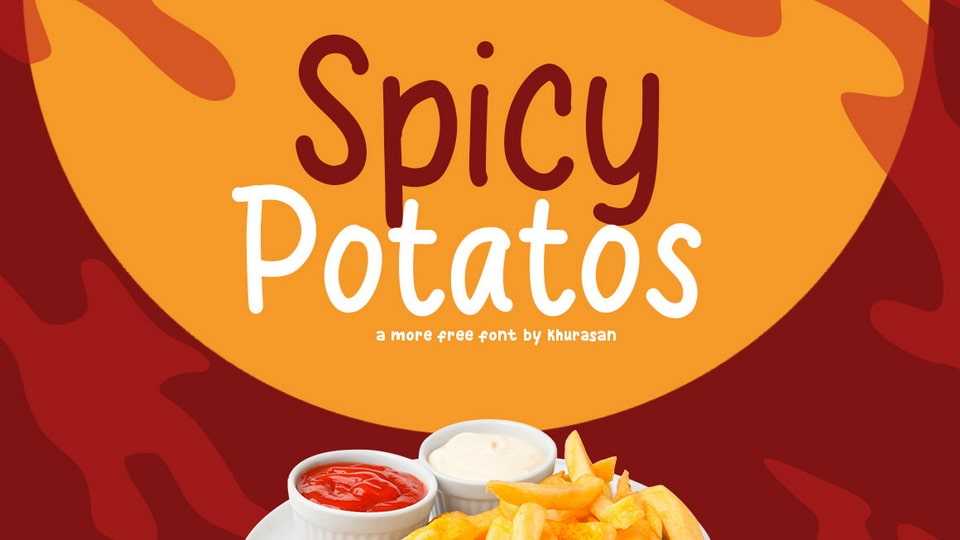
Download Spicy Potatos font, a hand-drawn comic typeface that takes your designs on a playful journey through the world of visual storytelling. Spicy Potatos font boasts a dynamic and free-spirited design, with each letter radiating a sense of joyful movement.